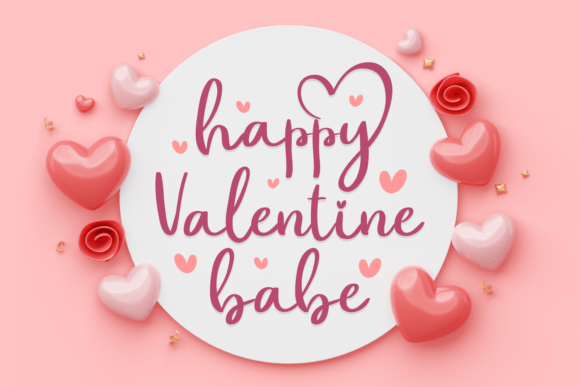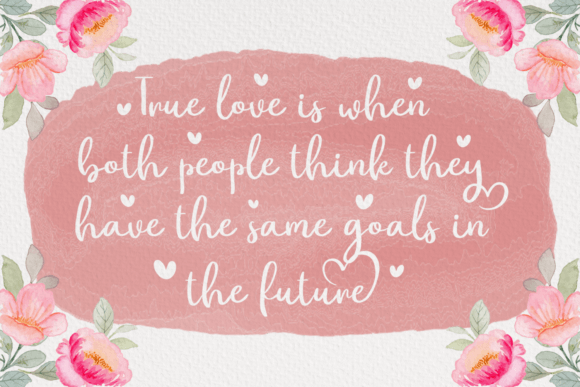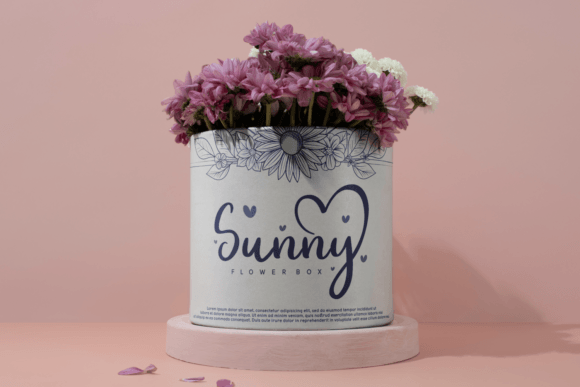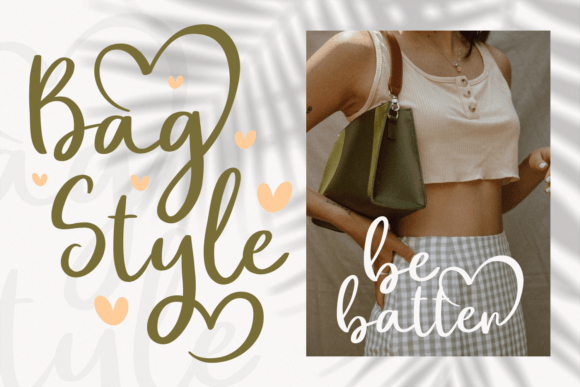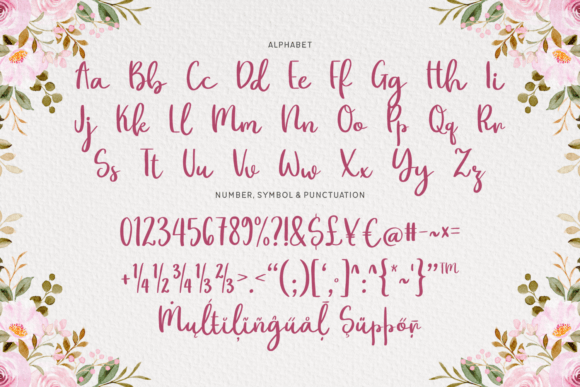
Introducing Bayuni Font: Elevate Your Designs with Elegance and Class
Are you tired of using the same old fonts in your designs? Do you want to add a touch of elegance and sophistication to your creations? Look no further than Bayuni Font, a lovely and friendly script font that is sure to take your designs to the next level. In this article, we’ll dive into the world of Bayuni Font, exploring its features, benefits, and uses, and why it’s a must-have for designers and crafters alike.
What is Bayuni Font?
Bayuni Font is a beautifully crafted script font that exudes elegance and class. This stunning font was particularly designed for those who need a beautiful and refreshing look to their designs. Whether you’re a graphic designer, a crafter, or simply someone who loves to create, Bayuni Font is the perfect choice for anyone looking to add a touch of sophistication to their work.
Features of Bayuni Font
So, what makes Bayuni Font so special? Here are just a few of its key features:
- Elegant and Classy: Bayuni Font is a script font that is both elegant and classy. Its beautiful curves and lines make it perfect for creating stunning designs that are sure to impress.
- Refreshingly Unique: Bayuni Font has a unique and refreshing look that sets it apart from other fonts. Its distinctive style is sure to add a touch of personality to your designs.
Benefits of Using Bayuni Font
So, why should you choose Bayuni Font for your designs? Here are just a few benefits of using this amazing font:
- Adds Elegance and Sophistication: Bayuni Font adds a touch of elegance and sophistication to your designs, making them perfect for a wide range of applications, from wedding invitations to business cards.
- Versatile: Bayuni Font is a versatile font that can be used for a wide range of design applications, from digital projects to print materials.
Uses of Bayuni Font
So, what can you use Bayuni Font for? The possibilities are endless! Here are just a few ideas to get you started:
- Wedding Invitations: Bayuni Font is perfect for creating beautiful wedding invitations that are sure to impress.
- Business Cards: Add a touch of elegance and sophistication to your business cards with Bayuni Font.
- Digital Projects: Bayuni Font can be used for a wide range of digital projects, from social media graphics to website headers.
- Print Materials: Bayuni Font is also perfect for print materials, such as brochures, flyers, and posters.
Tips for Using Bayuni Font
Here are a few tips for getting the most out of Bayuni Font:
- Experiment with Different Sizes: Bayuni Font looks great in a wide range of sizes, so don’t be afraid to experiment and find the perfect size for your design.
- Pair with Other Fonts: Bayuni Font pairs well with a wide range of other fonts, so try combining it with other fonts to create a unique and interesting look.
- Use for Headings and Titles: Bayuni Font is perfect for headings and titles, where its elegant and classy style can really shine.
| Font Name | Bayuni Font |